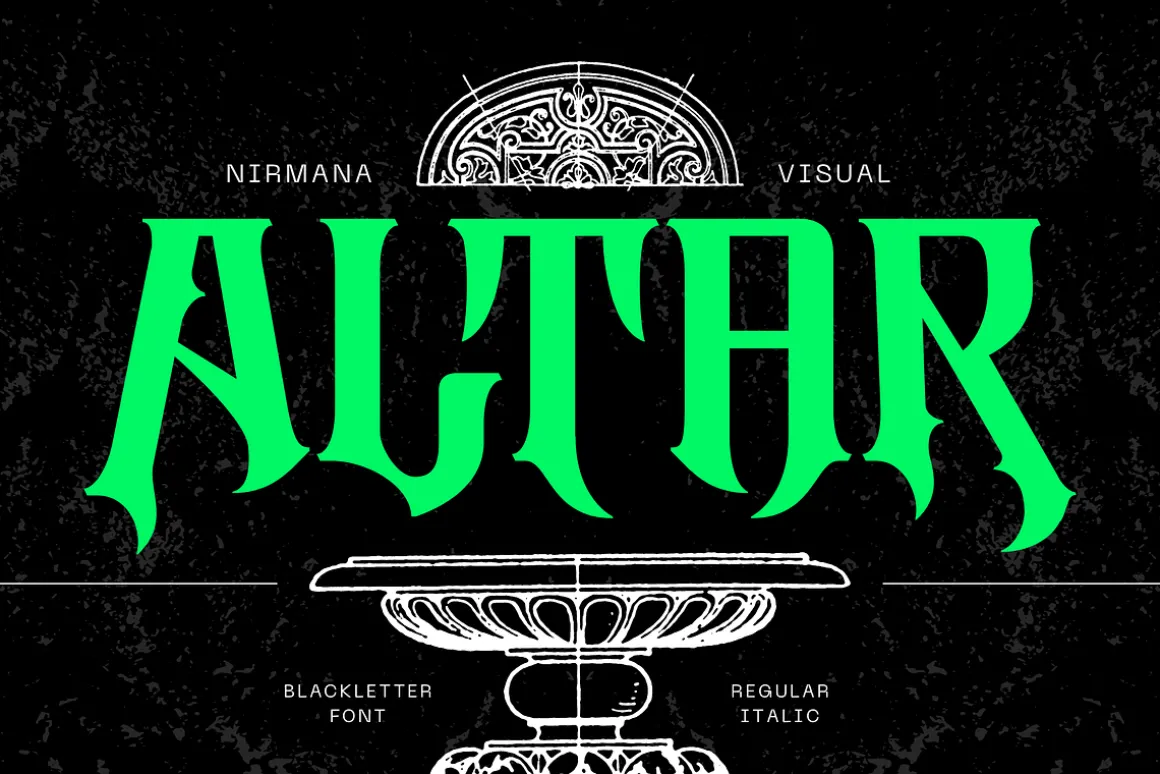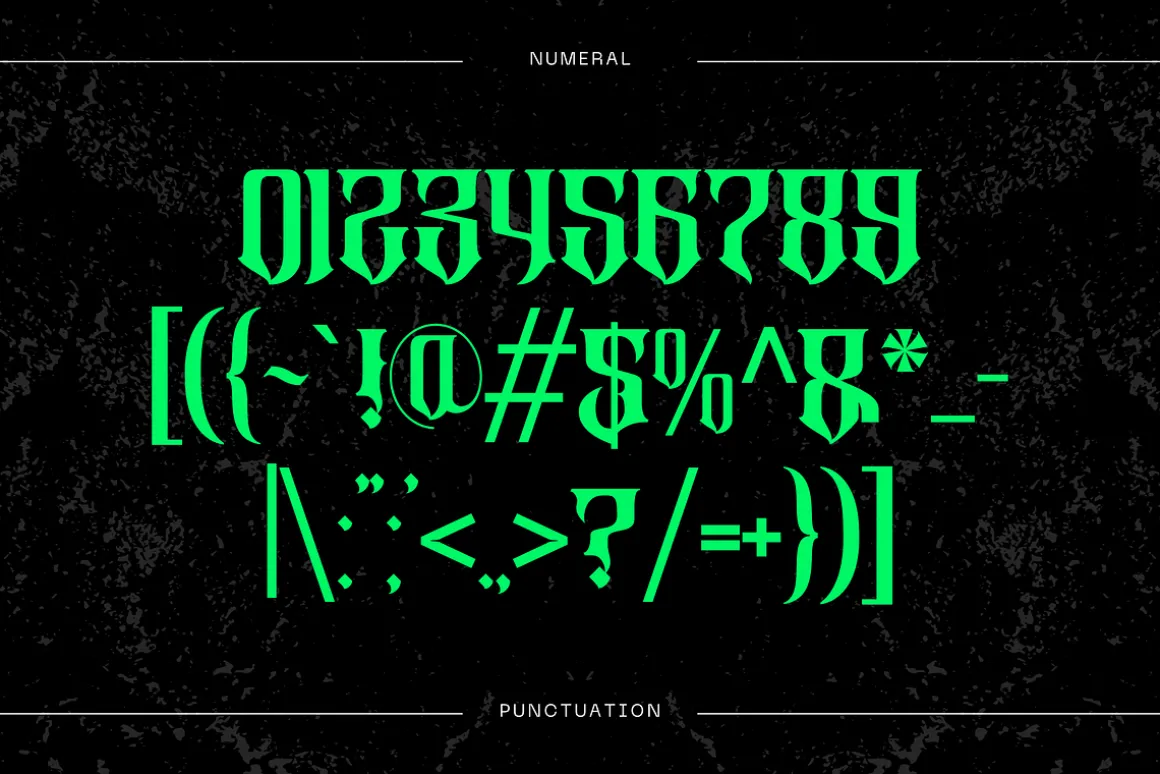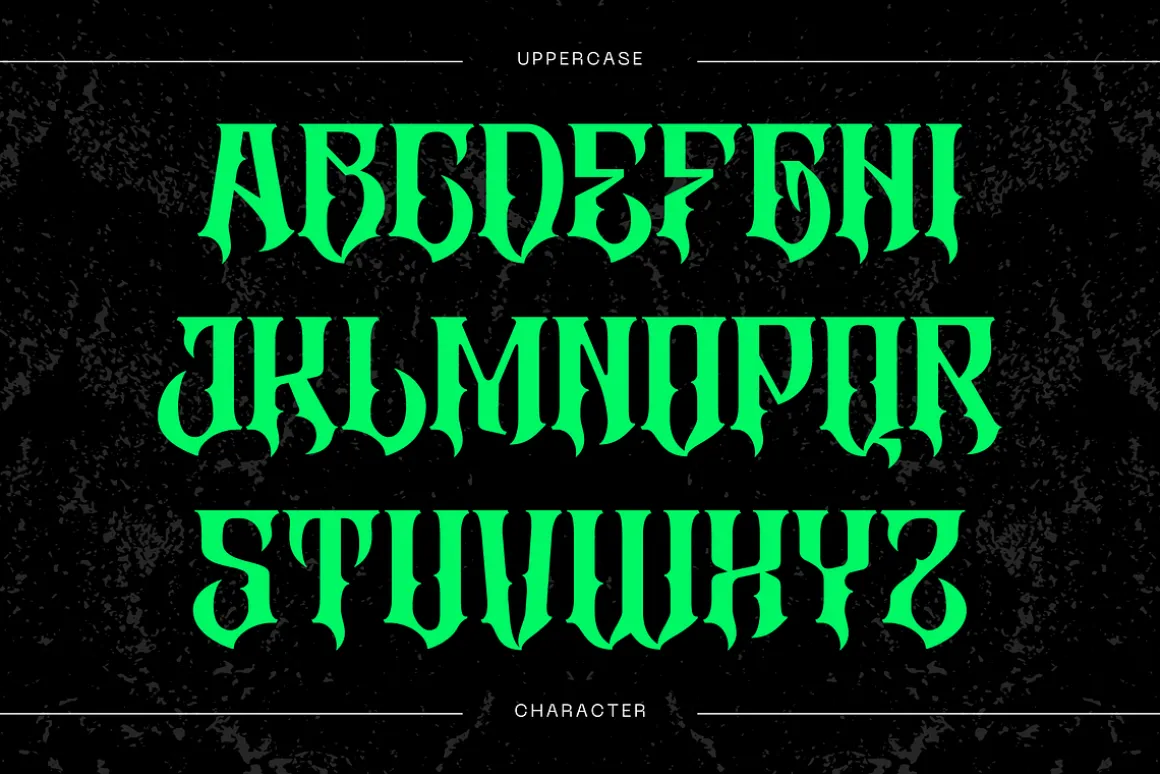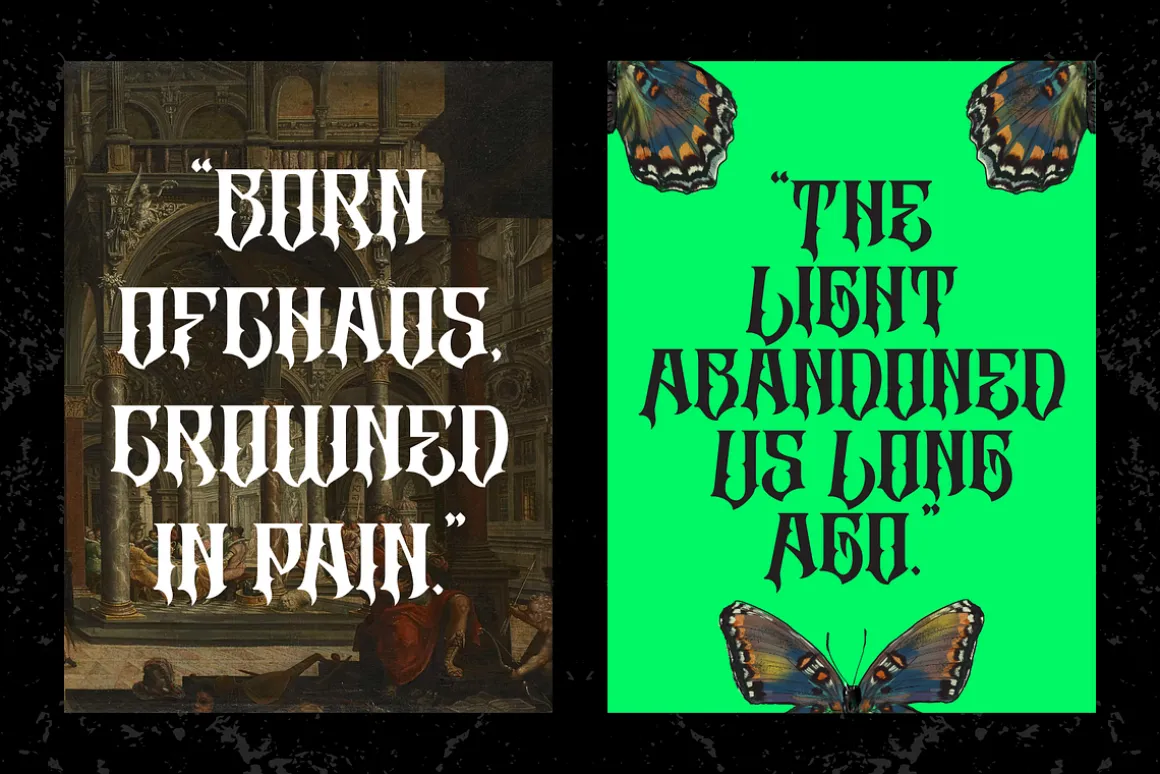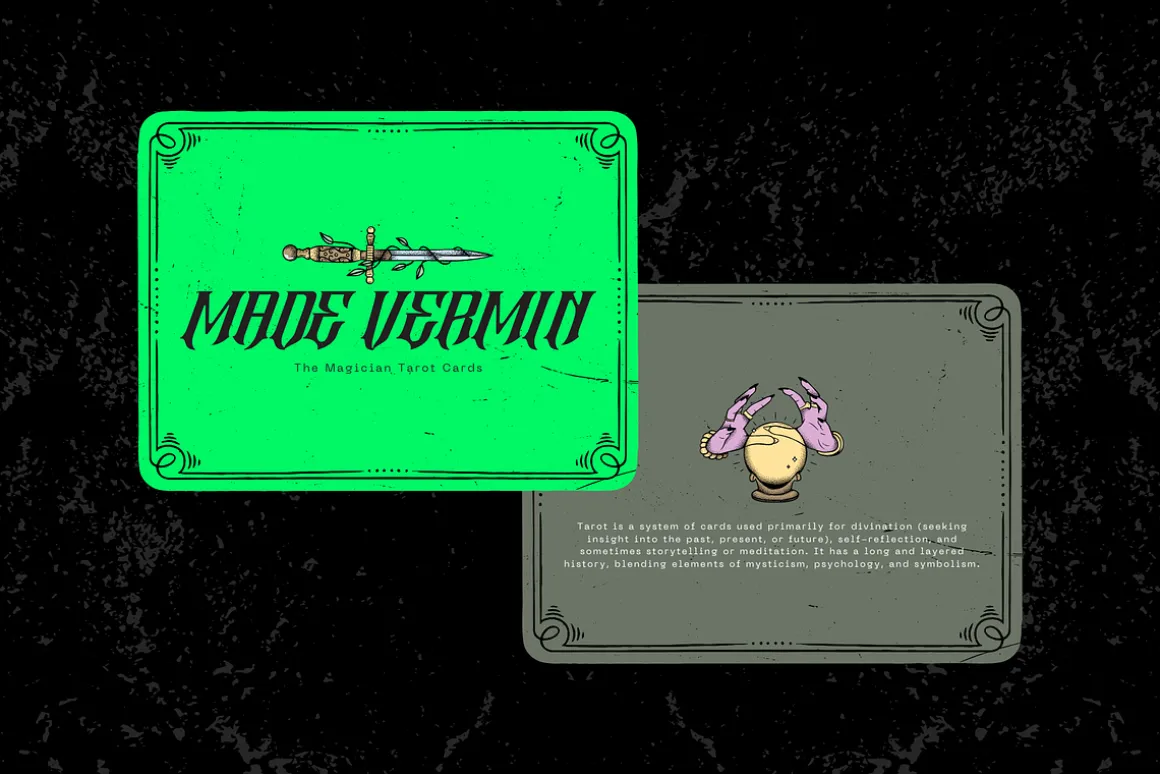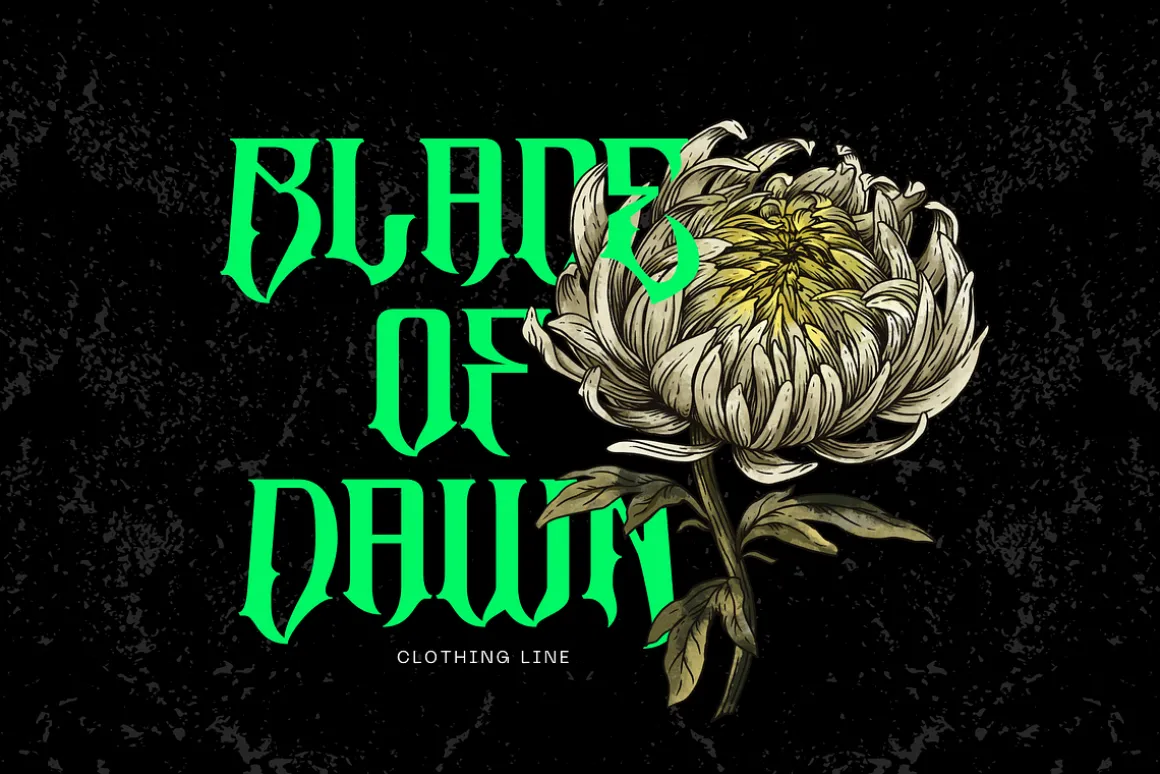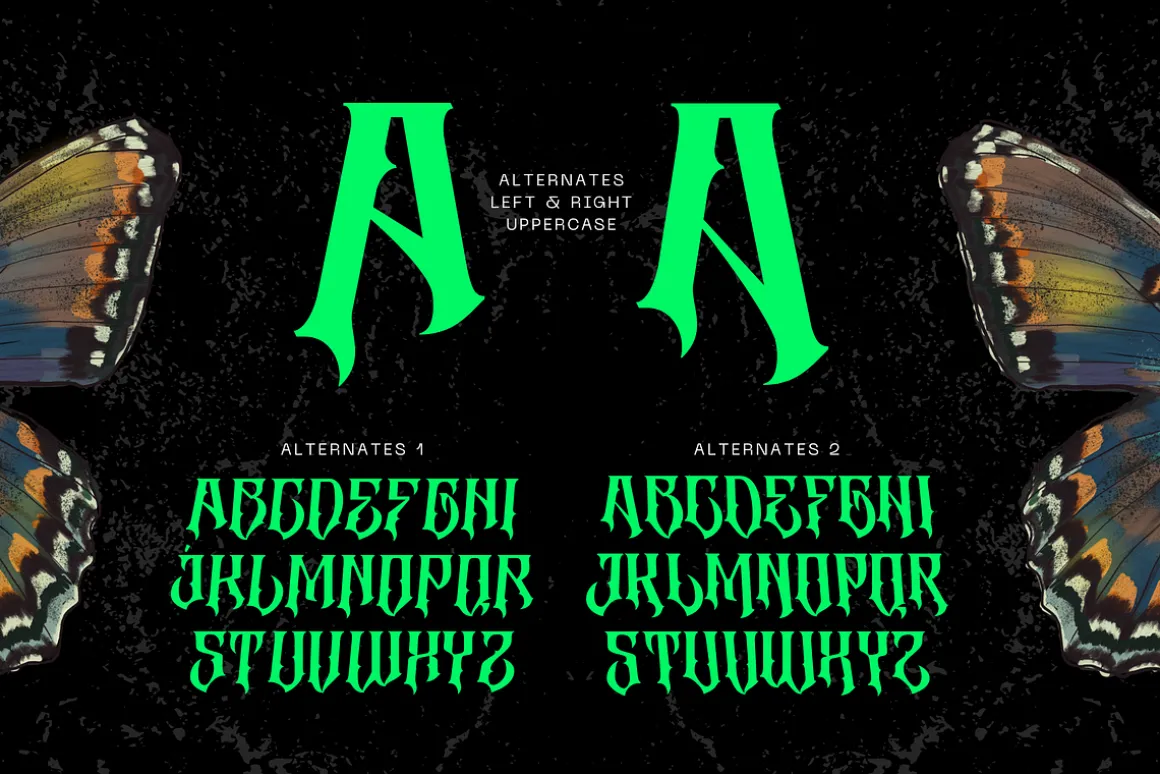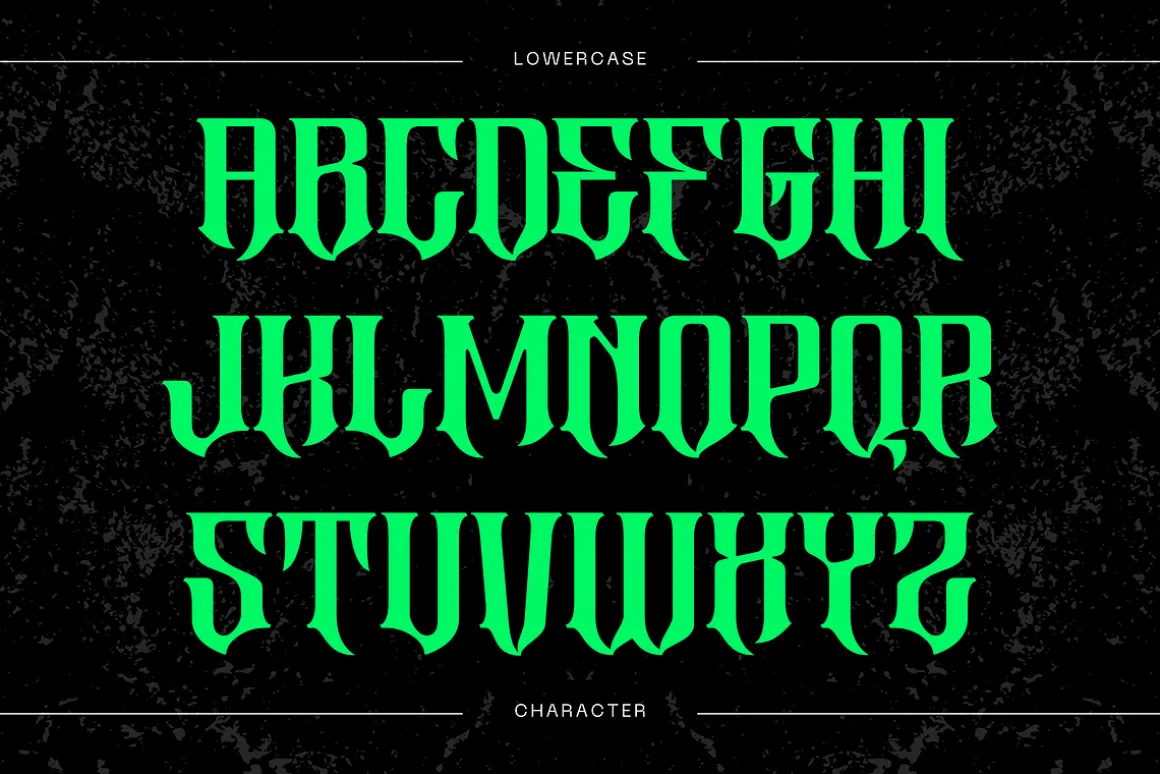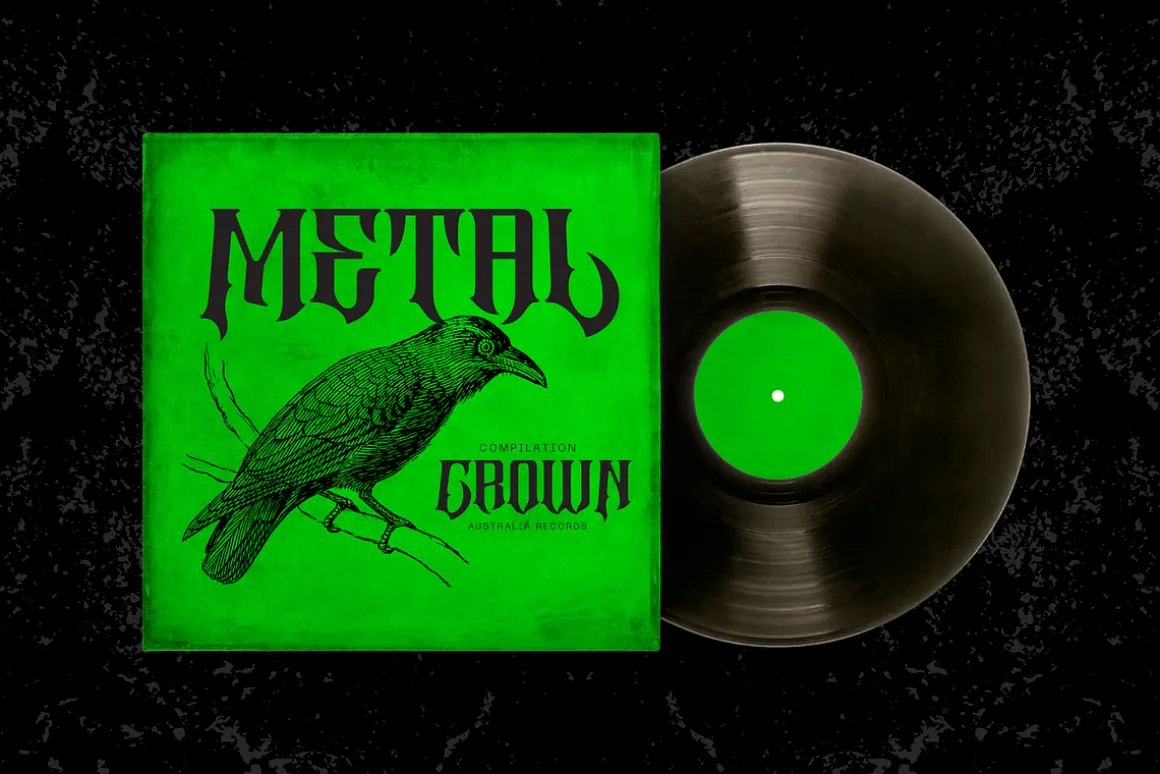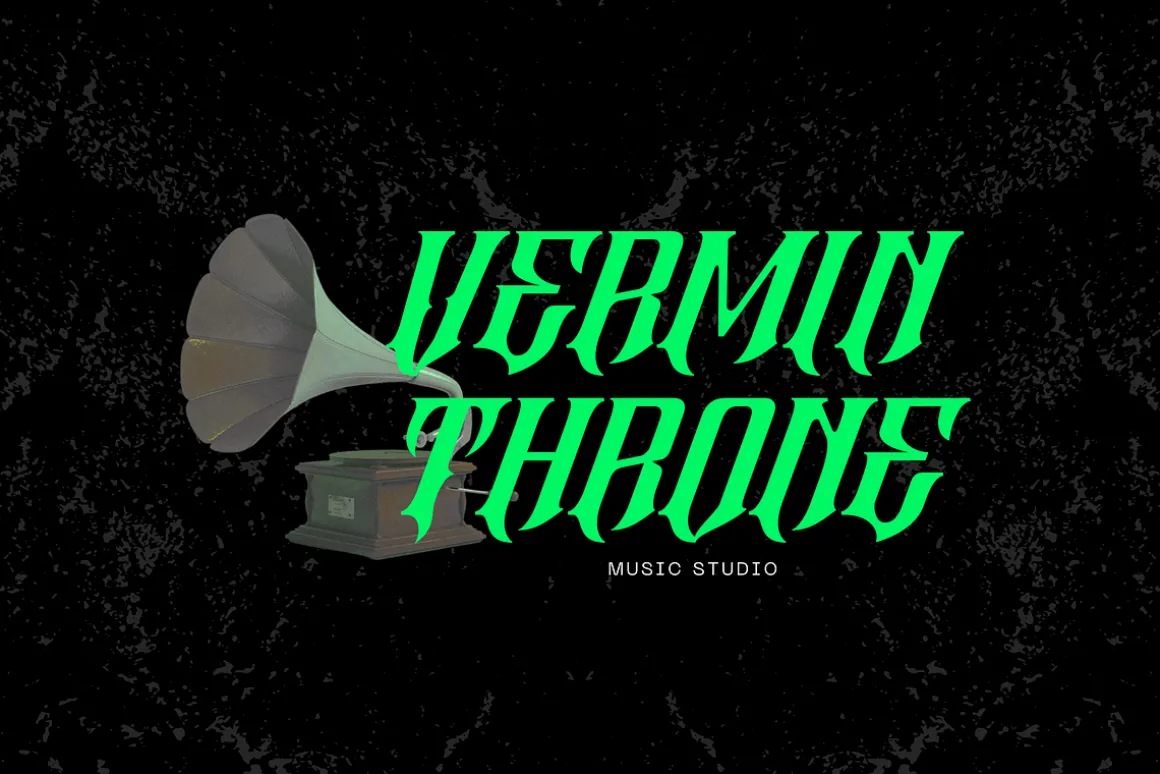
Altar Gothic – Blackletter Logo Font
Altar is a bold Blackletter Gothic font available in Regular and Italic styles. With sharp strokes and dramatic curves, it evokes a sense of tradition, strength, and mystique. Designed for impactful branding and logo design, Altar delivers a timeless yet edgy aesthetic that stands out. Perfect for fashion, music, and premium product brands seeking a powerful, iconic identity.